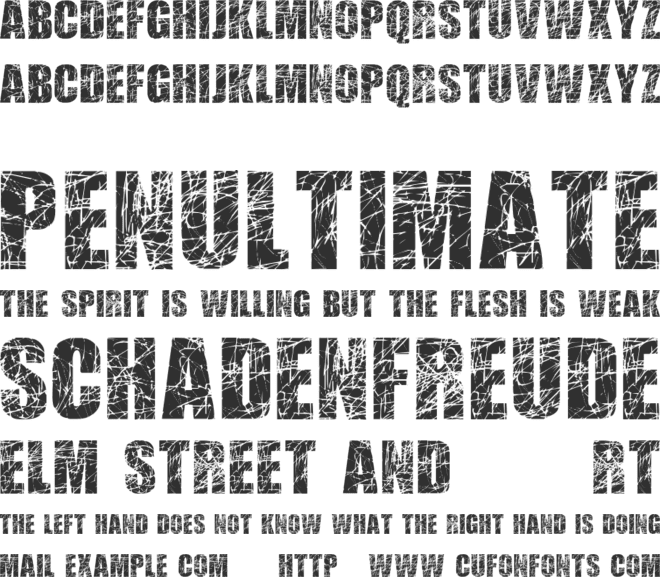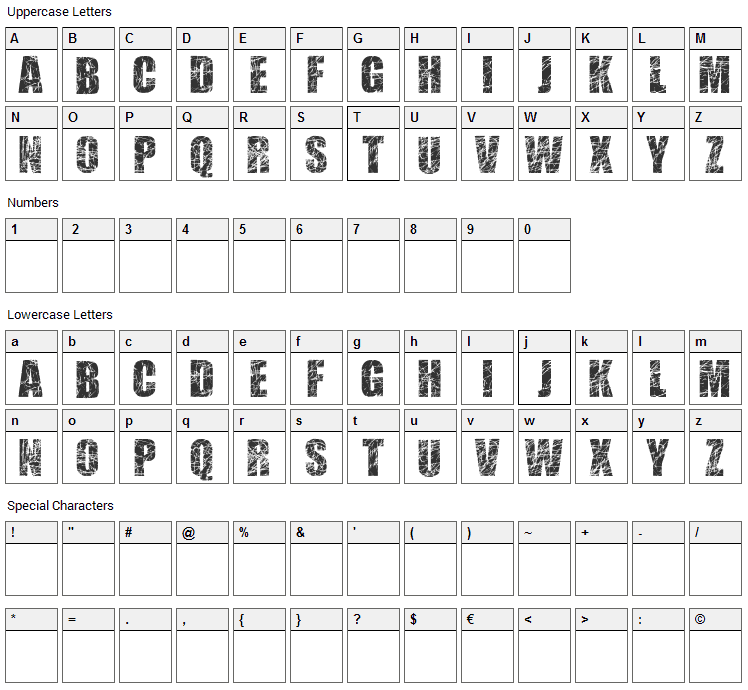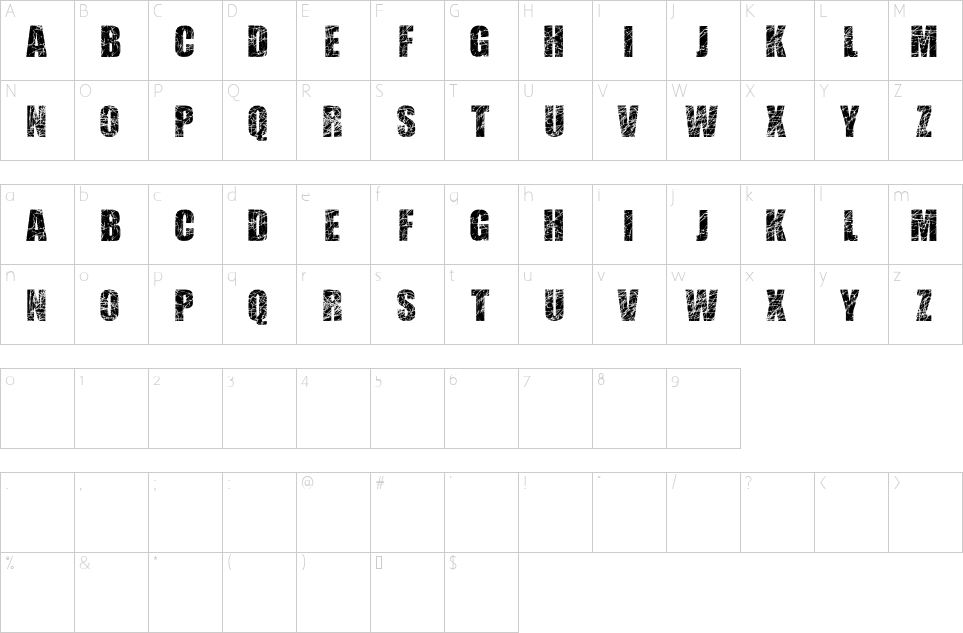
Scratched Letters Font - Download 242 free scratched fonts. 1001 free fonts offers a huge selection of free scratched. Click to find the best 228 free fonts in the scratched style. The scratched letters font is a display font.
Download 242 free scratched fonts. 1001 free fonts offers a huge selection of free scratched. Click to find the best 228 free fonts in the scratched style. The scratched letters font is a display font.
1001 free fonts offers a huge selection of free scratched. Click to find the best 228 free fonts in the scratched style. The scratched letters font is a display font. Download 242 free scratched fonts.
Click to find the best 228 free fonts in the scratched style. Download 242 free scratched fonts. The scratched letters font is a display font. 1001 free fonts offers a huge selection of free scratched.
Download 242 free scratched fonts. Click to find the best 228 free fonts in the scratched style. The scratched letters font is a display font. 1001 free fonts offers a huge selection of free scratched.
1001 free fonts offers a huge selection of free scratched. Download 242 free scratched fonts. Click to find the best 228 free fonts in the scratched style. The scratched letters font is a display font.
Click to find the best 228 free fonts in the scratched style. Download 242 free scratched fonts. 1001 free fonts offers a huge selection of free scratched. The scratched letters font is a display font.
The scratched letters font is a display font. Click to find the best 228 free fonts in the scratched style. 1001 free fonts offers a huge selection of free scratched. Download 242 free scratched fonts.
Scratched Letters Font
1001 free fonts offers a huge selection of free scratched. The scratched letters font is a display font. Download 242 free scratched fonts. Click to find the best 228 free fonts in the scratched style.
Scratched Letters font
Download 242 free scratched fonts. Click to find the best 228 free fonts in the scratched style. 1001 free fonts offers a huge selection of free scratched. The scratched letters font is a display font.
Scratched Letters font
Download 242 free scratched fonts. 1001 free fonts offers a huge selection of free scratched. Click to find the best 228 free fonts in the scratched style. The scratched letters font is a display font.
The Scratched Letters Font Is A Display Font.